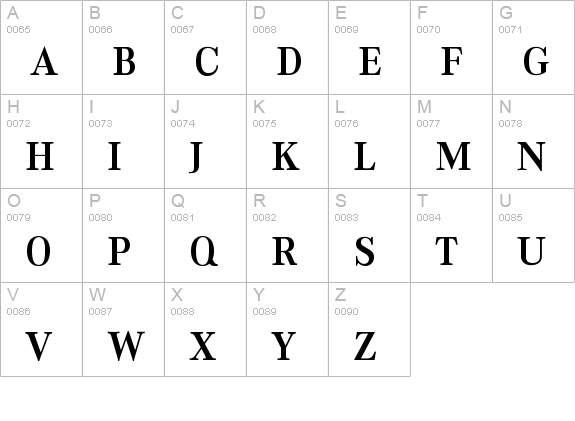
Corporate A BQ Bold Font Details
Corporate A BQ Bold is a strong, high-contrast variant in the Corporate typeface family \xE2\x80\x94 well suited to headlines, attention-grabbing titles, and strong calls-to-action.